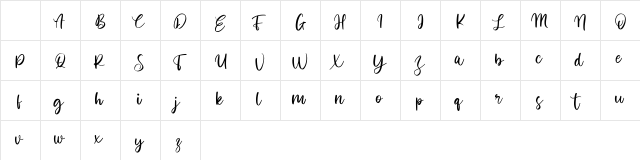
Complete Brasons Risool Free Regular glyph index. Displaying only characters natively supported by Brasons Risool Free Regular font.
Brasons Risool Free is a composed and adaptable typeface that performs quietly and consistently across a wide range of design contexts.